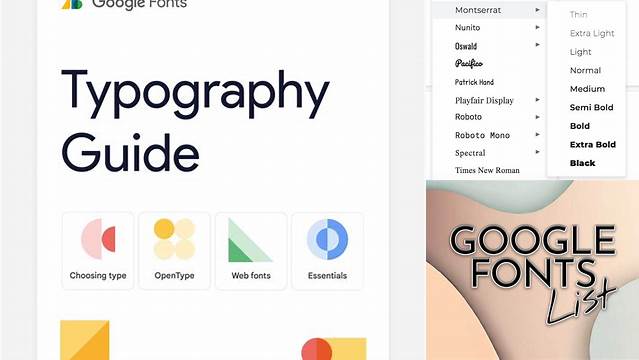
Google Fonts: Your Complete Guide
Google Fonts, your go-to resource for web typography, offers a vast library of fonts that are free to use and easy to integrate into your website or project. This guide will delve into everything you need to know about Google Fonts, from selecting the perfect font pairing to optimizing performance and ensuring accessibility. So, guys, let's dive in and unlock the power of typography!
H2: What Exactly are Google Fonts and Why Use Them?
Google Fonts is essentially a free, open-source directory of fonts that you can use on your website. The main thing about Google Fonts is it simplifies the process of adding custom fonts to your site without the need for complicated licensing or expensive font subscriptions. Think of it as a huge, free library, filled with beautiful typefaces ready for you to use. Google Fonts are hosted on Google's servers and delivered via a Content Delivery Network (CDN), which means faster loading times and improved performance for your website. Pretty cool, huh? The service also makes it incredibly easy to implement these fonts through simple CSS and HTML integrations. You don't need to download fonts and manage them on your server; instead, you just link to the font from Google's servers. This saves you time and bandwidth, as Google handles the hosting and delivery of the fonts. Moreover, the fonts are optimized for web use, ensuring that they render correctly across various devices and browsers. Using Google Fonts can significantly enhance the visual appeal and readability of your website. By choosing fonts that match your brand's personality and the tone of your content, you can create a more engaging and memorable experience for your visitors. Moreover, Google Fonts provides a wide array of styles, allowing you to customize the look of your text, from headings and subheadings to body text and captions. So you can easily experiment with different font combinations until you find the perfect match. Plus, by using standard fonts, you can ensure that your text will look consistent across different browsers and devices, improving the overall user experience. Google Fonts supports a large number of languages, so you can create websites that reach a global audience. The service also offers a variety of weights and styles within each font family, such as bold, italic, and condensed, giving you even more flexibility in your design. Another great thing about Google Fonts is that it is completely free, which means you can use any font in the library for personal or commercial projects without any fees or royalties. This is a huge advantage, especially for small businesses and independent developers. The simple integration process, along with the variety of font options and performance benefits, makes Google Fonts a must-have for any web designer or developer looking to improve their website's visual appeal and usability.
H2: Browsing and Selecting Fonts on Google Fonts: Tips and Tricks
Navigating the Google Fonts library can be a bit overwhelming at first, with so many options available. Don't worry, guys, I got you covered. Let's break down some handy tips and tricks to help you find the perfect fonts for your project. First things first, head over to the Google Fonts website. The site is nicely organized with a user-friendly interface. You can easily filter fonts by various criteria, such as serif, sans-serif, display, handwriting, and monospace. These categories are super helpful when you're not sure where to start. For example, if you want a classic and elegant look, you might start with a serif font like 'Times New Roman' or 'Playfair Display'. If you're aiming for a more modern and clean aesthetic, try a sans-serif font like 'Roboto' or 'Open Sans'. Once you’ve got a rough idea of what you're looking for, start exploring. Browse through the fonts and take the time to look at the different styles available. Most fonts come in multiple weights (light, regular, bold, etc.) and styles (italic). This will give you plenty of options. As you browse, you can use the text preview feature to see how the fonts look with your chosen text. This is a great way to visualize how the font will work within your designs. You can also adjust the text size and spacing to get a better feel for the font. A helpful feature is the ability to filter fonts based on their popularity, trending status, or the number of styles. This can help you discover fonts that are widely used and trusted by other designers. Don't be afraid to experiment with different font pairings. Google Fonts offers a wide range of fonts, so you can mix and match to create unique combinations. Generally, it’s a good idea to choose a headline font that's different from your body text font. This creates visual interest and makes your content more readable. Once you've found a font you like, you can add it to your collection. The collection feature is a great way to save and compare different fonts before making a final decision. When you're ready to use the font, you can select it and copy the provided code snippet. This code will need to be added to your website's HTML or CSS to make the font visible. By following these tips, you can easily find and select the perfect fonts on Google Fonts that will enhance your website's design and readability, making it more engaging and visually appealing for your audience.
H2: Pairing Fonts: Creating Harmonious Typography
Font pairing is the art of combining two or more fonts to create a visually appealing and harmonious typography design. You can’t just throw any two fonts together; it takes a bit of strategy to get it right, guys. The goal is to find fonts that complement each other, enhance readability, and reflect the overall tone and style of your project. One of the most important things to consider when font pairing is the contrast between the fonts. A good contrast ensures that the text is easy to read and that the different elements of your design stand out. You want to find fonts that differ in terms of their style, weight, or structure. For example, you might pair a bold, heavy font for headings with a lighter, more readable font for the body text. When choosing fonts, think about the different font classifications, such as serif, sans-serif, and display fonts. Serif fonts have small decorative strokes at the ends of the letters and are typically associated with a sense of tradition and formality. Sans-serif fonts, on the other hand, lack these strokes and tend to look more modern and clean. Display fonts are often used for headlines and can be more decorative and attention-grabbing. Consider the mood and personality you want to convey with your design. Fonts have different personalities; some are playful, some are serious, and some are elegant. If you’re creating a website for a law firm, you might want to use a serif font that conveys professionalism and trustworthiness. If you're creating a website for a toy store, you might choose a more playful display font. You also want to think about readability. Make sure that the font combination you choose is easy to read, especially for the body text. It's a good idea to test your font pairings with longer blocks of text to ensure that they are readable and don’t strain the eyes. Google Fonts provides a handy feature that lets you see how your font pairings look together, making it easier to visualize your design. Try creating hierarchy in your design by using one font for the headings and another for the body text. This helps to create a clear visual structure and guides the reader’s eye through the content. Once you’ve chosen your fonts, make sure they work well together in different sizes and weights. Experiment with the font sizes and styles to ensure that your design is visually appealing across all devices. Look at examples and get inspiration from other designers. There are plenty of websites and resources where you can find pre-designed font pairings. Learning how to pair fonts takes practice, but with a bit of attention to detail and a good eye for design, you can create stunning and effective typography.